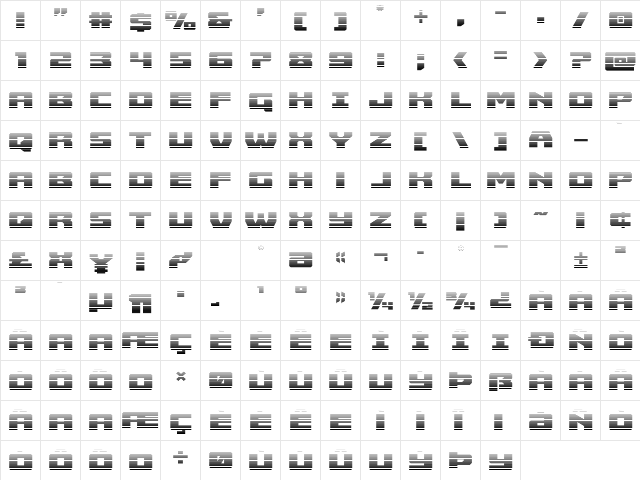
Cruiser Fortress Gradient Regular
Design Context for Cruiser Fortress Gradient Typeface
Cruiser Fortress Gradient offers clean, dependable letterforms without strong stylistic allegiance, making it a practical choice for designers who need flexibility.